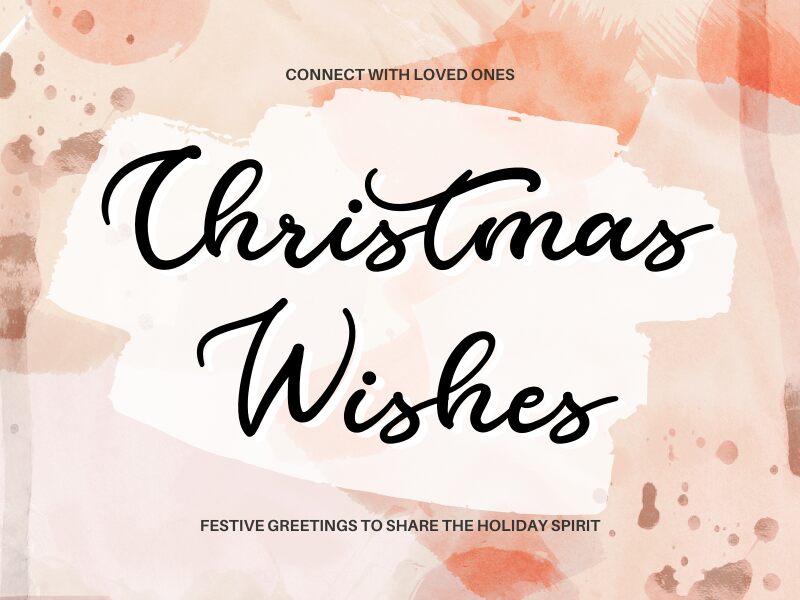
Christmas Wishes
Christmas Wishes font by Creaditive Design is a handwritten font that breathes festive magic. With elegant and expressive lines, its modern calligraphy style captures the warmth and flowing aesthetic ideal for Christmas themes. This free fonts is embodying in an instant all the charm of celebrations to bring headings and key phrases on holiday designs.